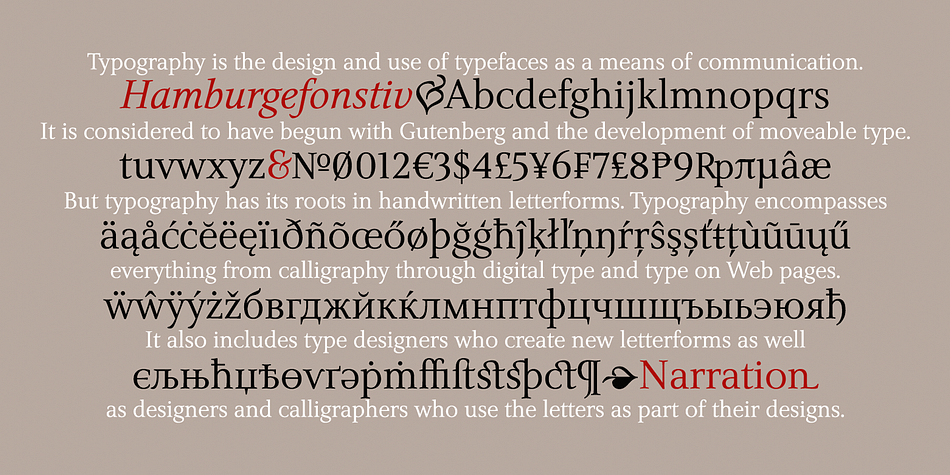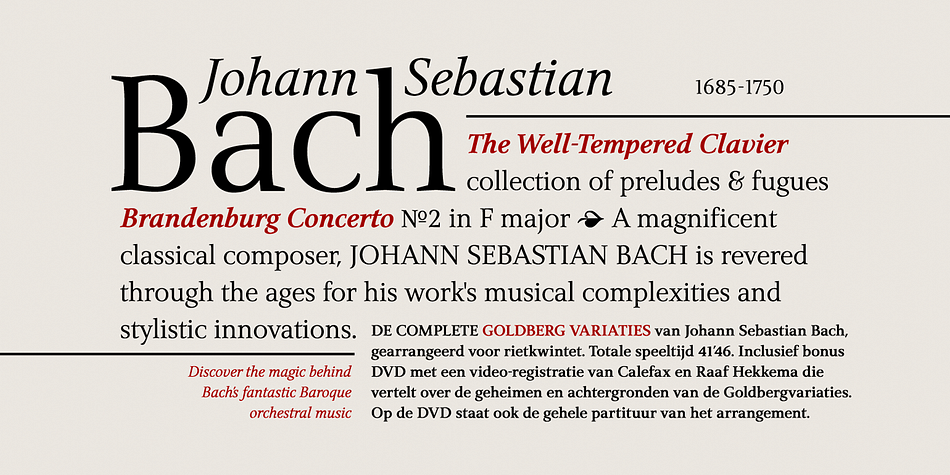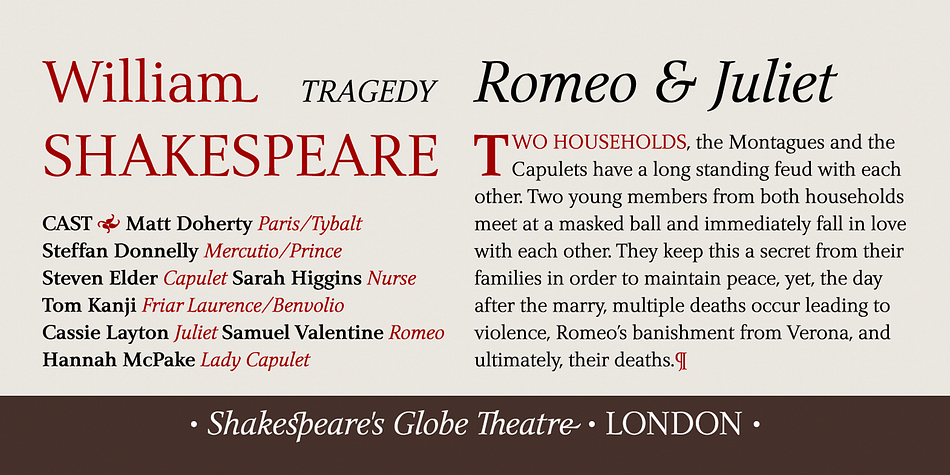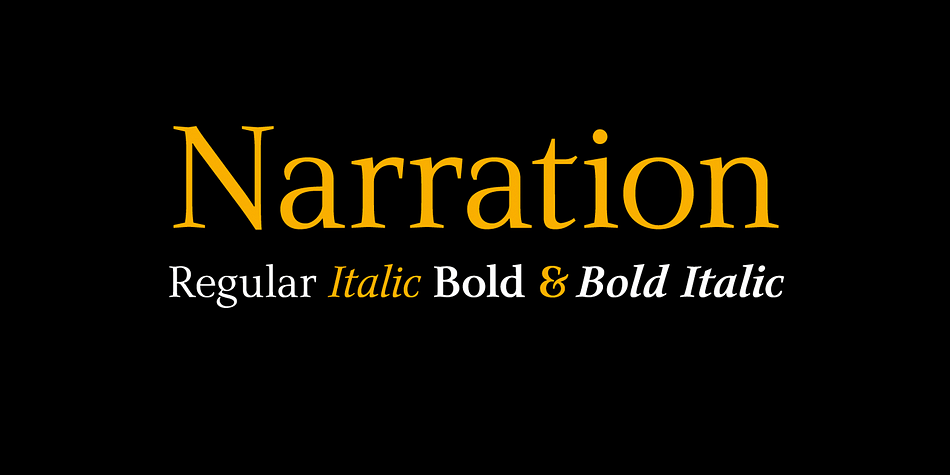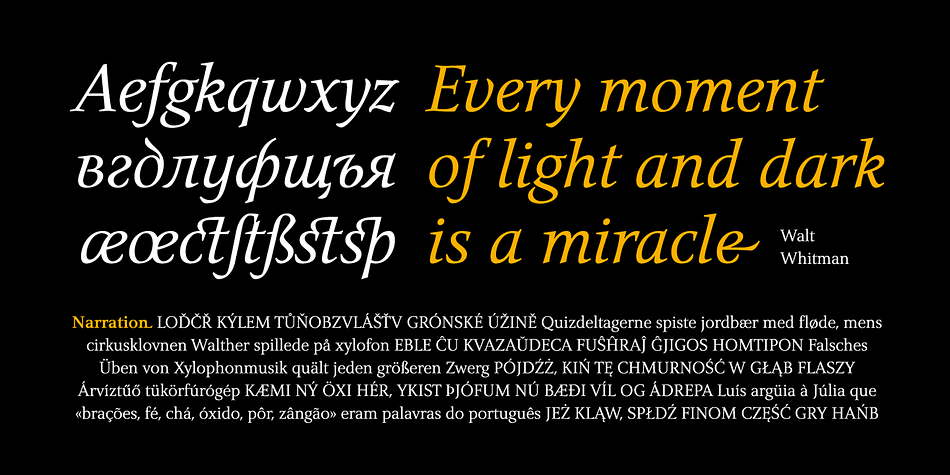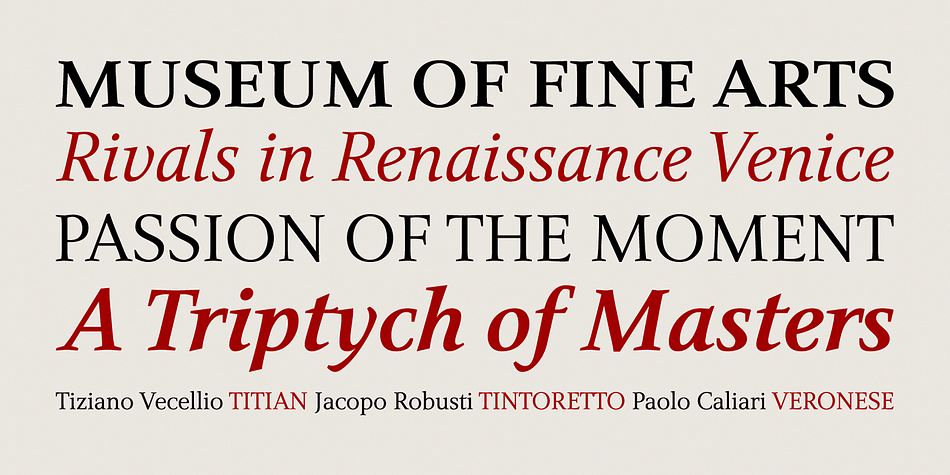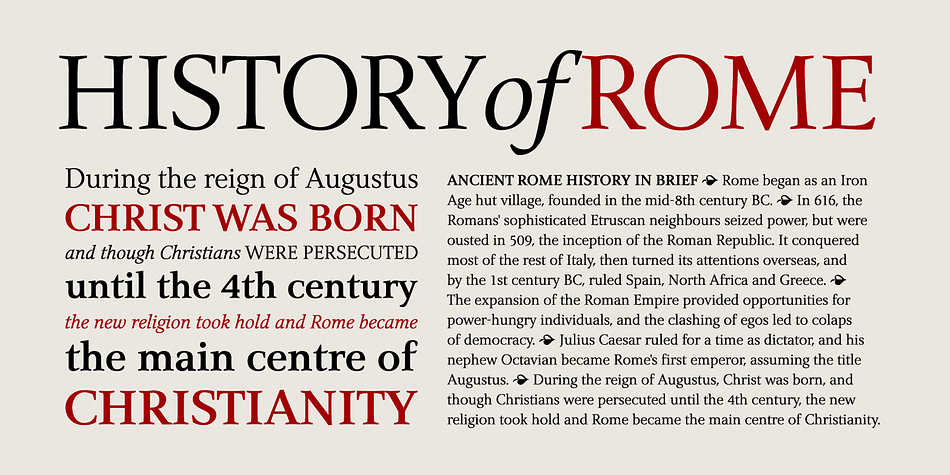
Narration is a serif font family. This typeface has four styles and was published by PESIC.
Narration is a bright serif font with classic proportions, that is inspired by the Renaissance as well as neoclassical tradition, contemporary design with a delicate sense of rhythm, clarity and legibility.
Serif fonts, although reduced and simplified geometric lines, have a role model in the Roman lapidary inscriptions. Narration is suitable for the style that requires elegance and grace of the text, publications of historical, archaeological, artistic and other cultural events, as well as fashion, labels for cosmetics, wine and more.
Character folders correspond to all functional letterpress requirements and contain all the glyphs of Latin European languages and Cyrillic.